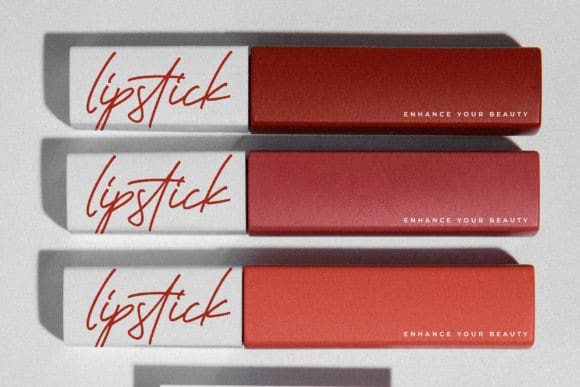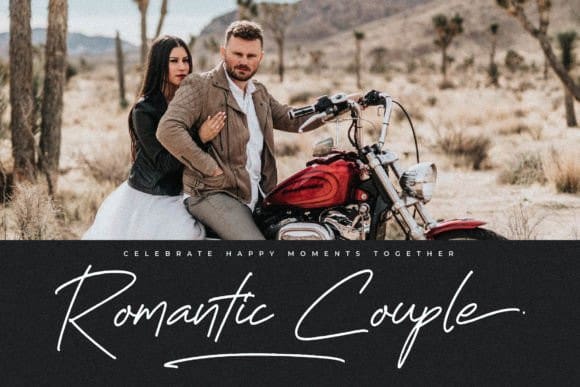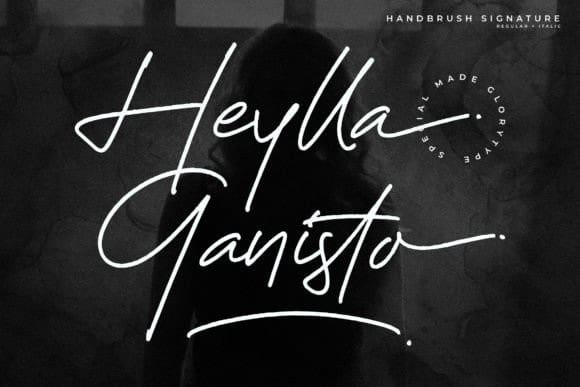
Heylla Ganisto Font
Heylla Ganisto Font – Handbrush Signature font suitable for any projects such as logos, branding projects, homeware designs, product packaging, mugs, quotes, posters, shopping bags, t-shirts, book covers, name cards, invitation cards, greeting cards, labels, photography, watermark, special events, and all your other lovely projects that need a beautiful script taste.